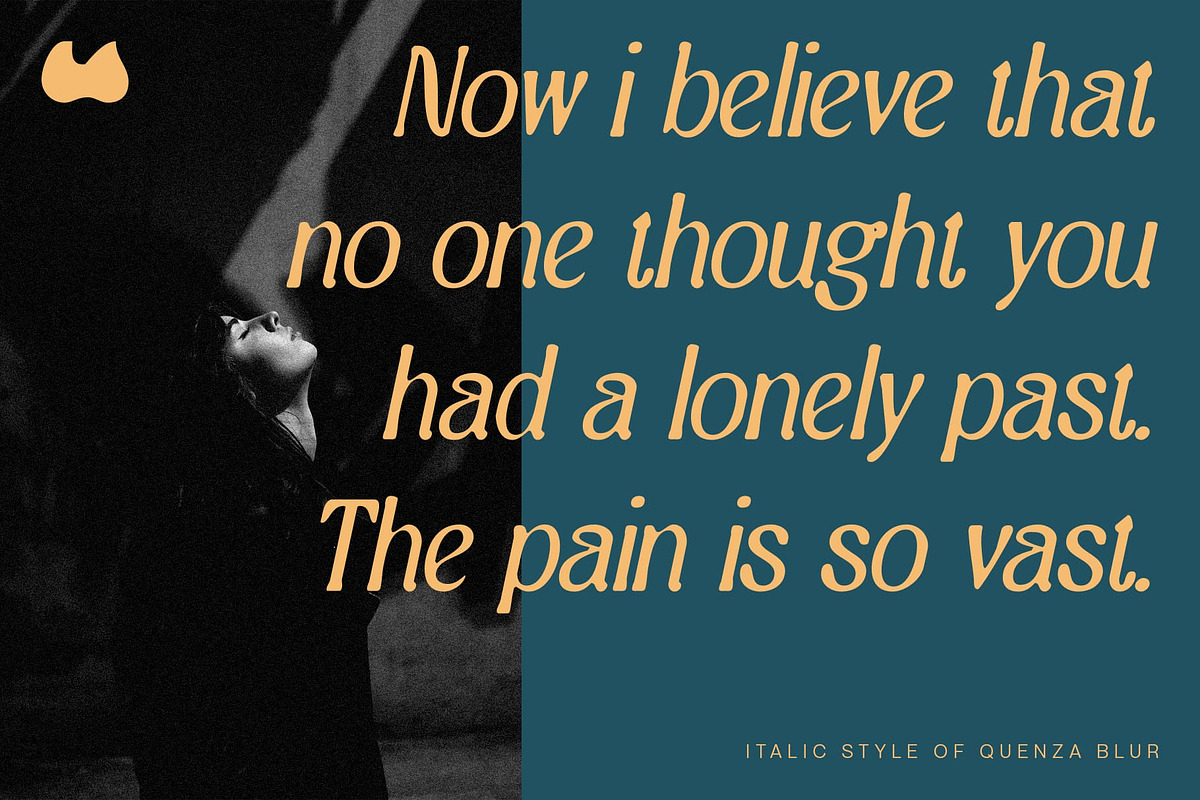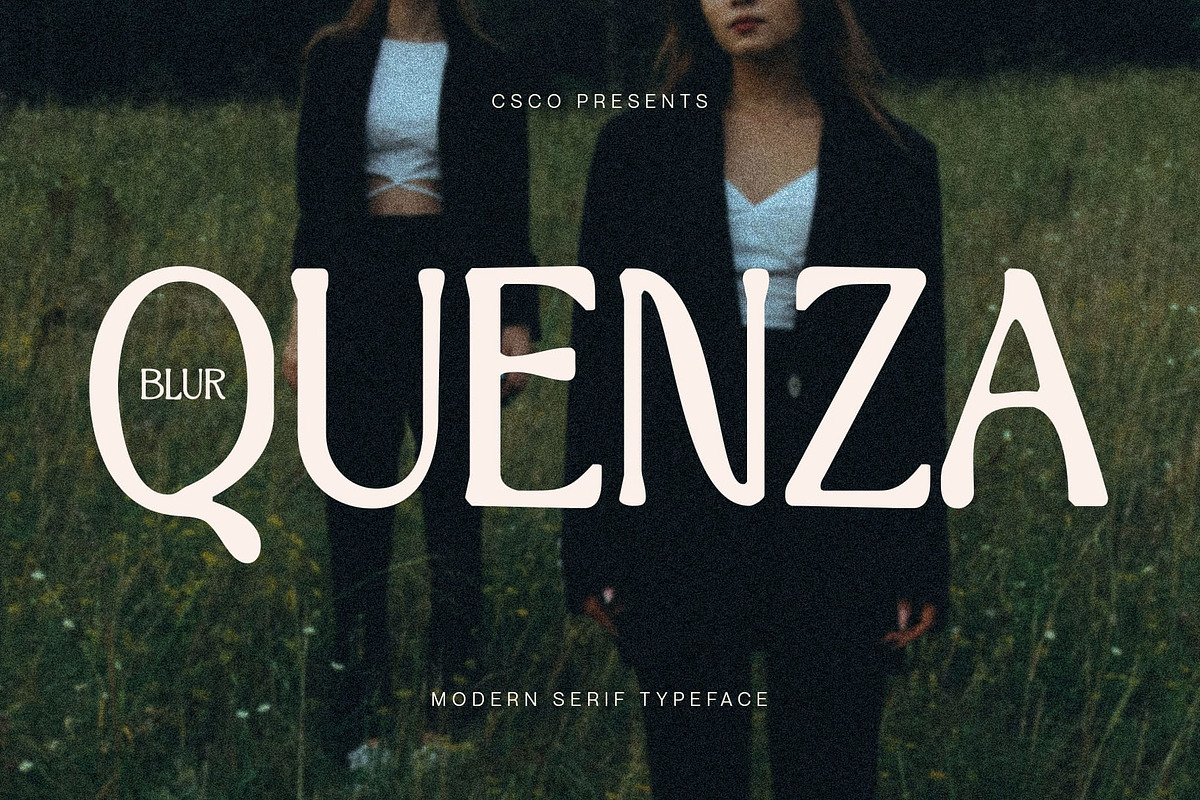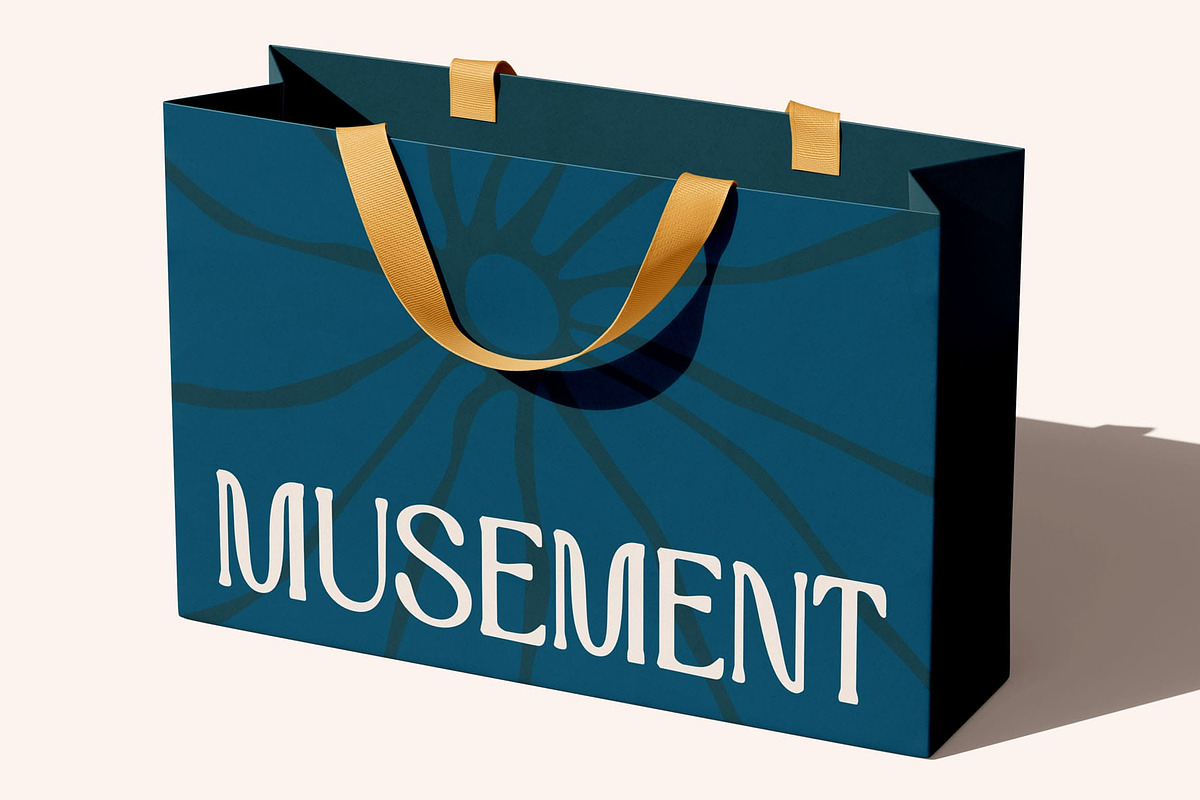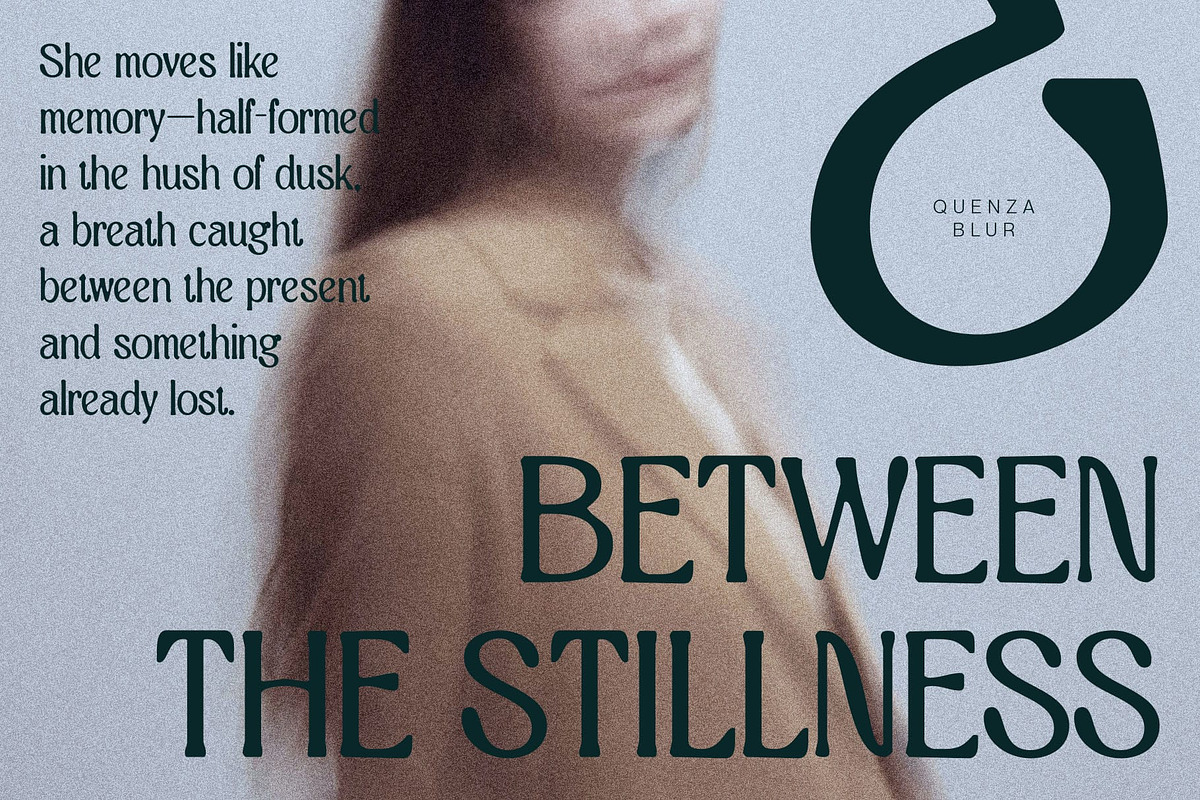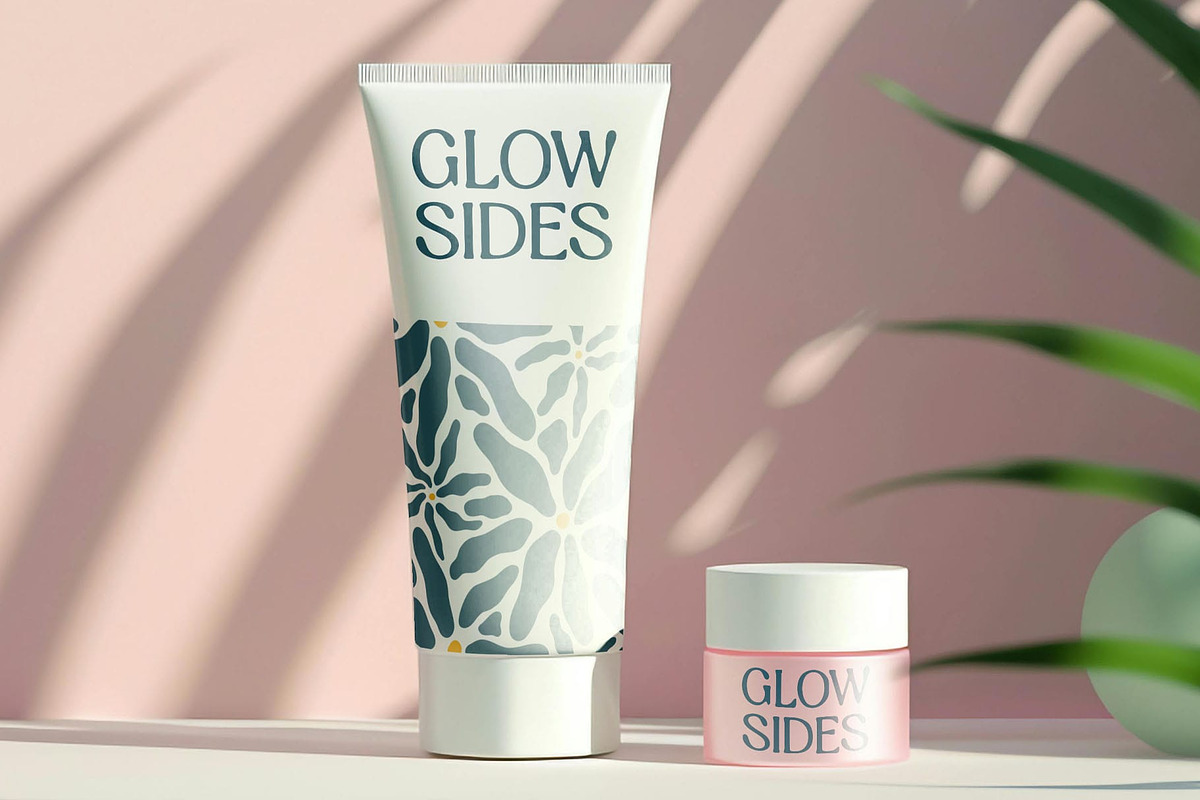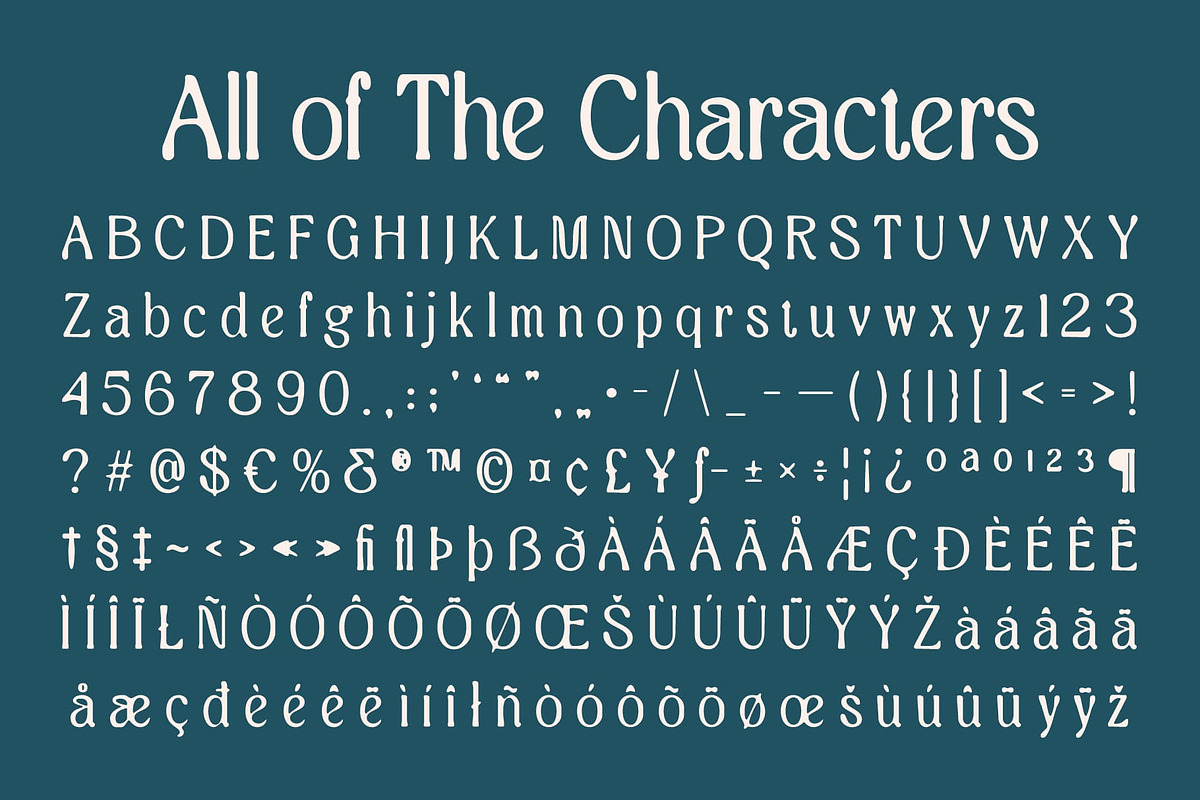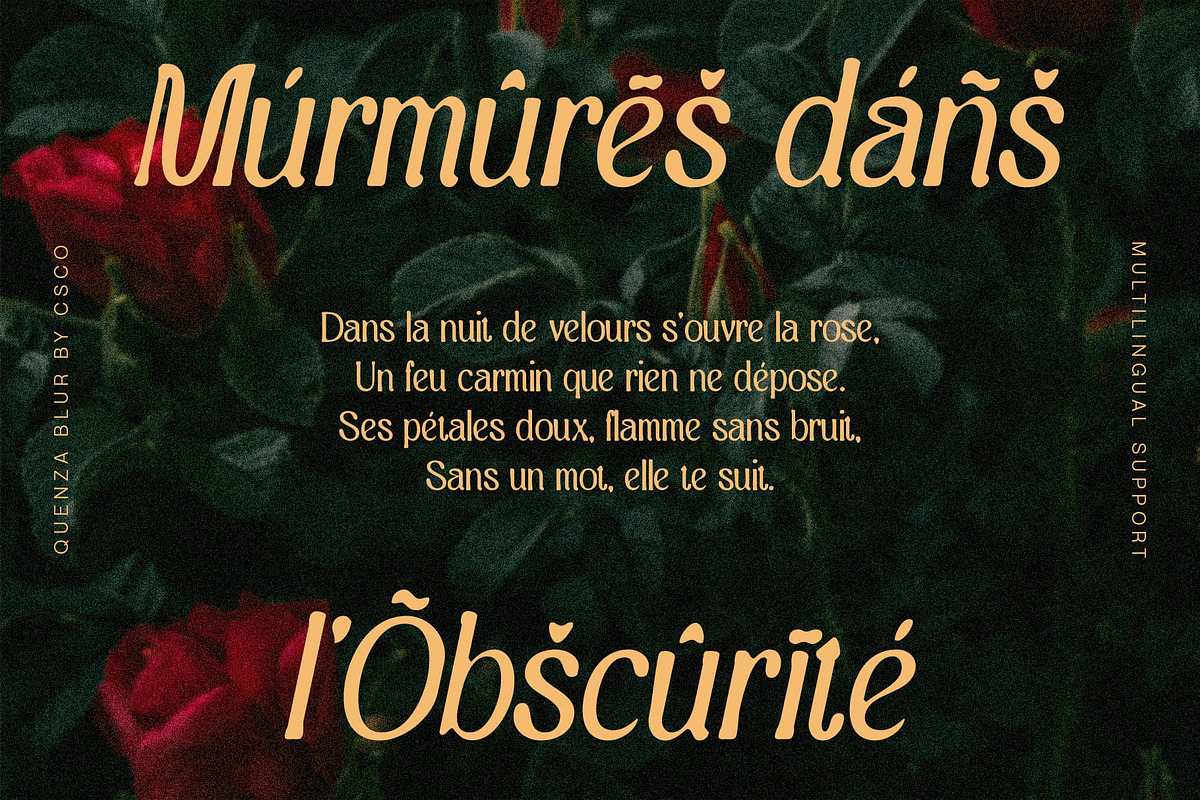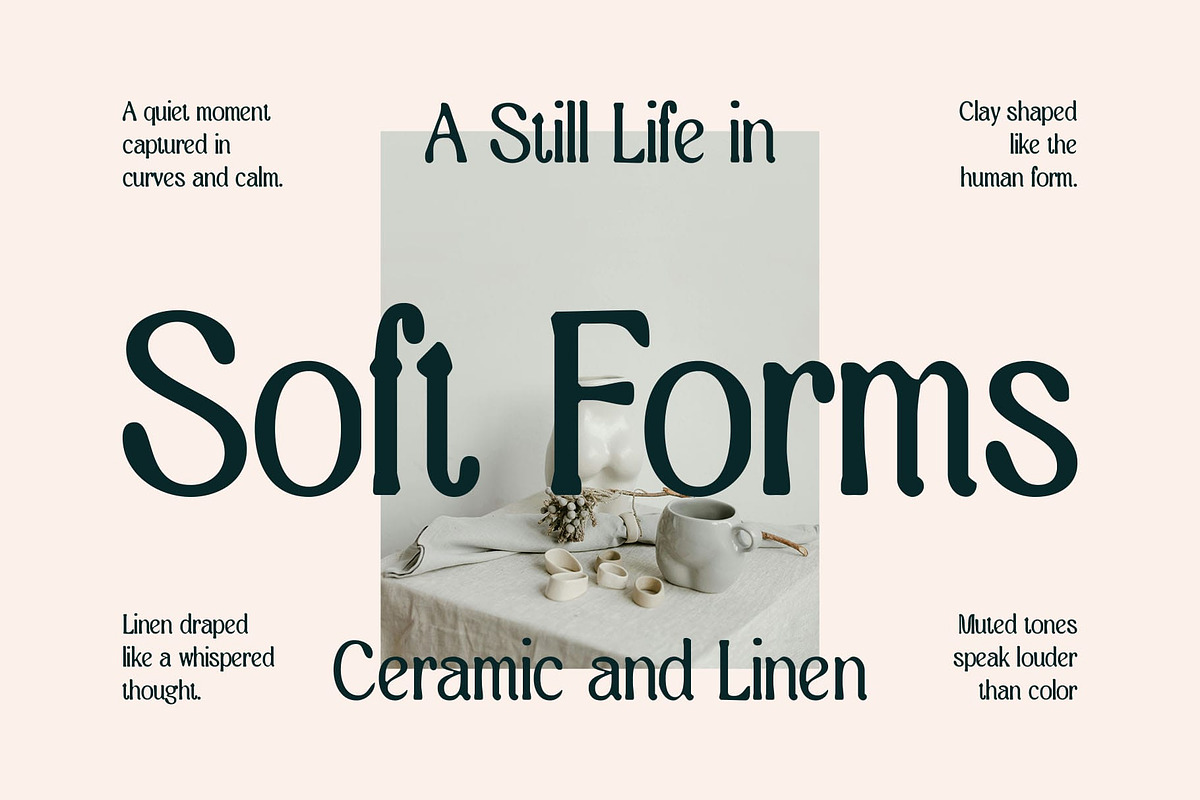
Quenza Blur
Quenza Blur Font – Modern Serif with Elegant Blur Effect
Modern Serif Font with Refined Blur Style Quenza Blur is a modern serif font that artfully combines contemporary elegance with an experimental edge. Defined by its clean structure, delicate strokes, and fine serif details, it introduces a graceful typographic presence enhanced by a distinctive blur effect that adds softness and visual intrigue.
Elegant Structure with a Contemporary Soul With tall, slender letterforms and refined contrast, Quenza Blur embodies modern sophistication. The precision of its serif architecture ensures clarity and poise, making it ideal for refined design environments that demand a blend of tradition and innovation.
Soft Blur for Artistic and Dreamlike Expression The subtle blur effect transforms the font’s classic form into something more ethereal and artistic. It softens the sharpness of traditional serifs, creating a dreamy, luxurious impression that adds depth and emotion.
Perfect for High-End and Editorial Applications Whether used in luxury branding, fashion editorials, or elegant packaging, Quenza Blur elevates visual storytelling with its graceful presence. Its stylistic duality—balancing clarity and softness—makes it suitable for high-impact headlines, logotypes, and sophisticated typographic compositions.
A Captivating Blend of Classic and Experimental Quenza Blur invites designers to explore the boundaries between structure and fluidity. It is a perfect choice for projects that seek to merge the reliability of a serif with the expressive charm of modern artistic treatments.
- Quenza Blur Regular
- Quenza Blur Italic